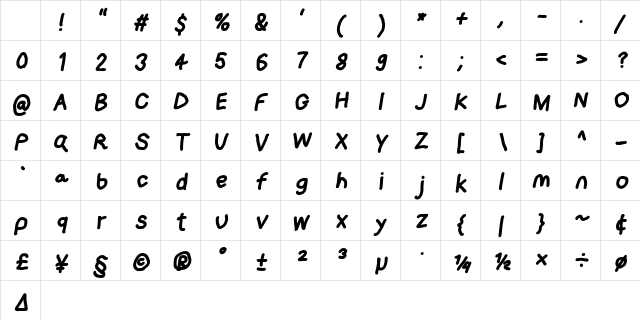
Complete Loogie Hawk Obl glyph index. Displaying only characters natively supported by Loogie Hawk Obl font.
Loogie Hawk is a composed and adaptable typeface that performs quietly and consistently across a wide range of design contexts.